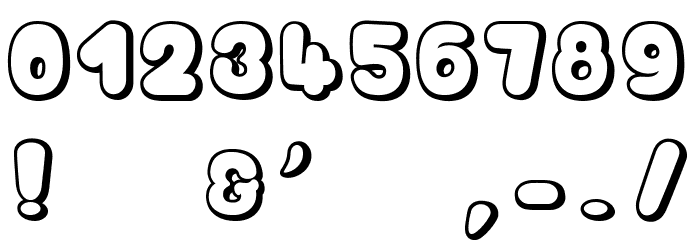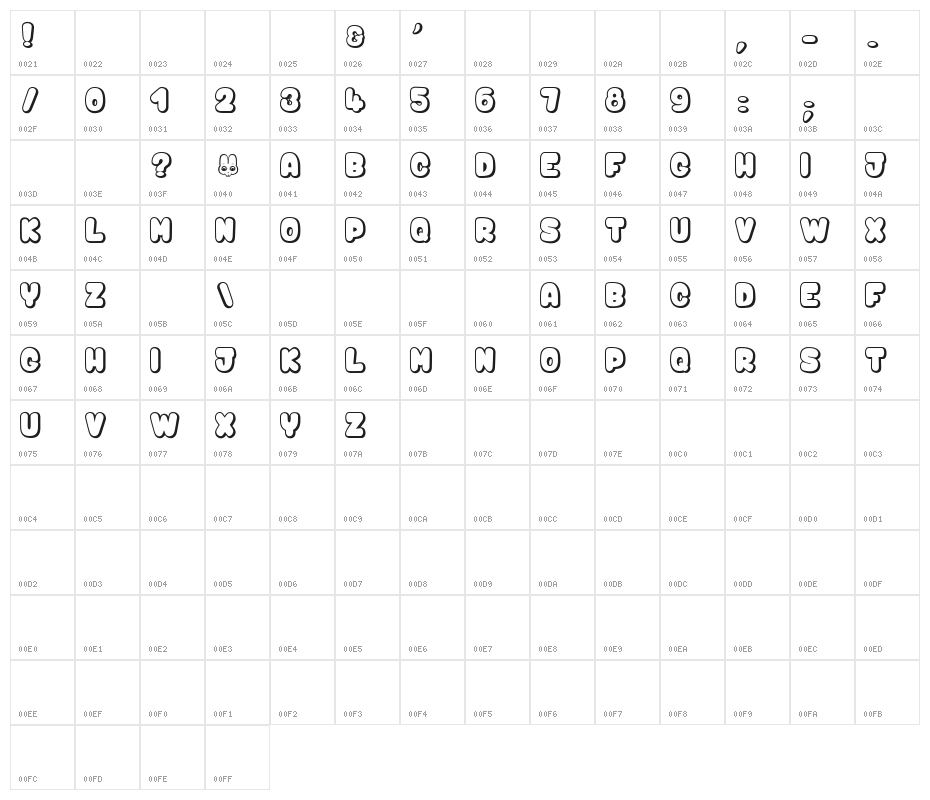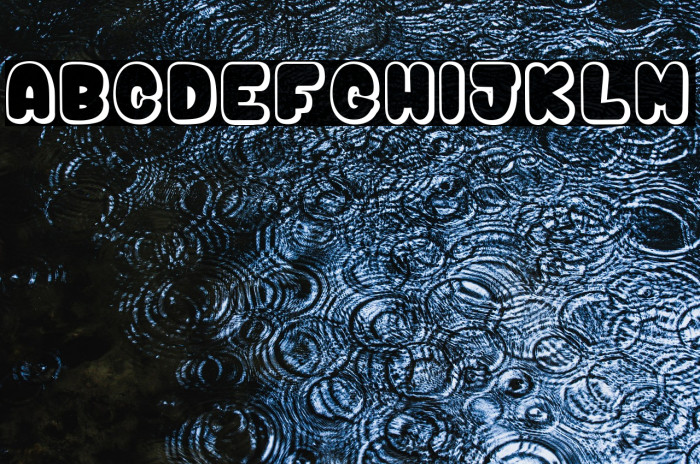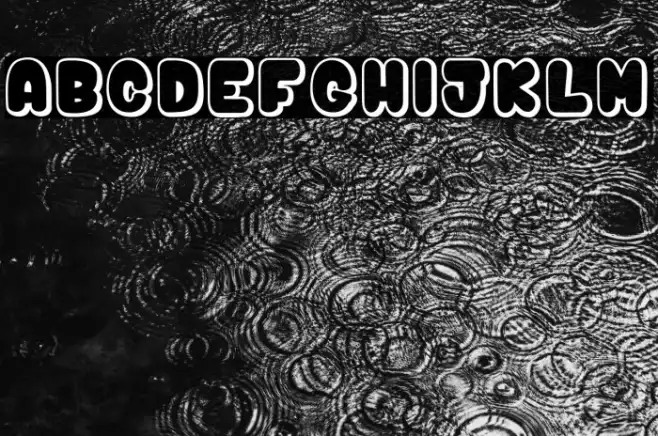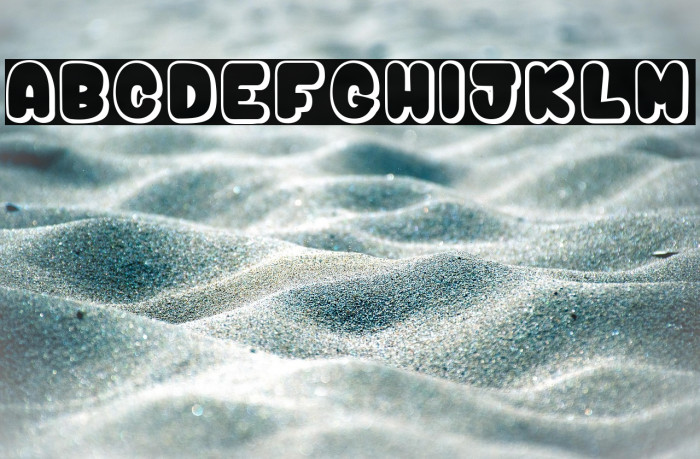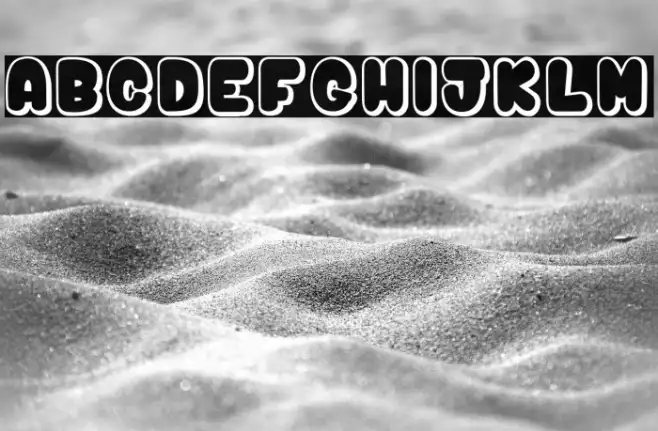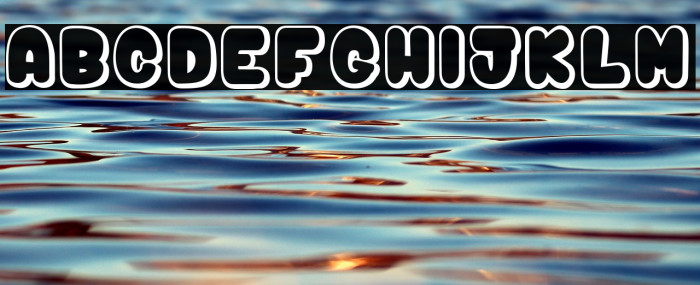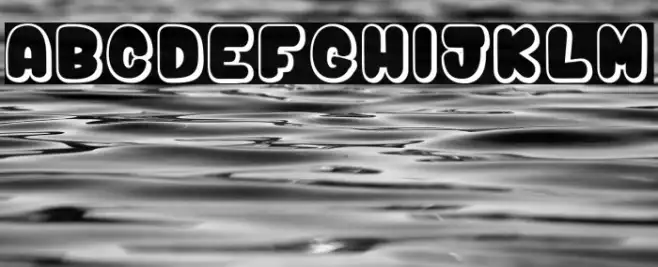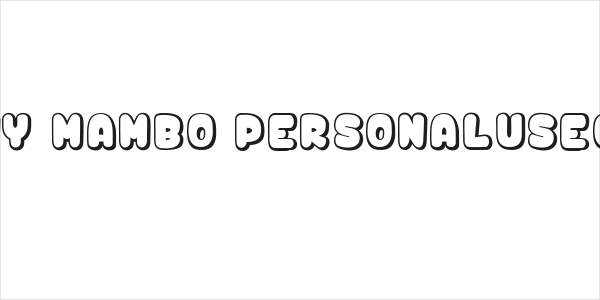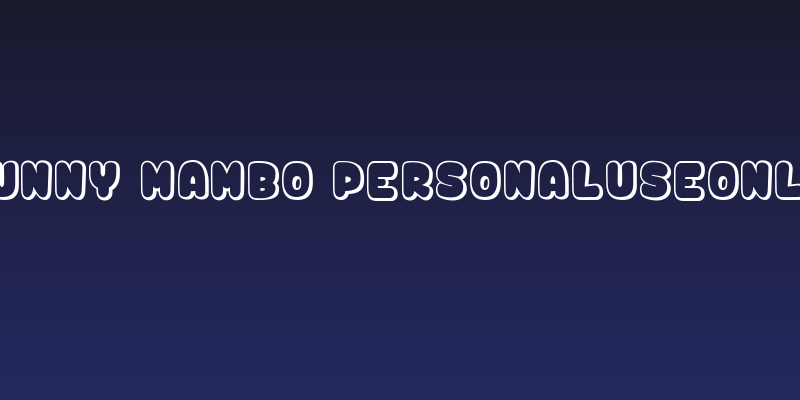
Bunny Mambo_PersonalUseOnly Font
Bunny Mambo_PersonalUseOnly Description
This playful and bold font features rounded, bubble-like characters with a thick outline, giving it a cartoonish and friendly appearance. The letters are evenly spaced and maintain a consistent thickness throughout, making them highly legible and visually appealing. The font's whimsical style is perfect for projects that require a fun and engaging look. It includes both uppercase and lowercase letters, numbers, and a selection of special characters, all maintaining the same bubbly aesthetic. The overall design is cohesive and versatile, suitable for a variety of creative applications.
| Overall Style | Playful, Cartoonish |
| Proposed Projects | Ideal for children's books, party invitations, playful branding, and cartoon graphics. |